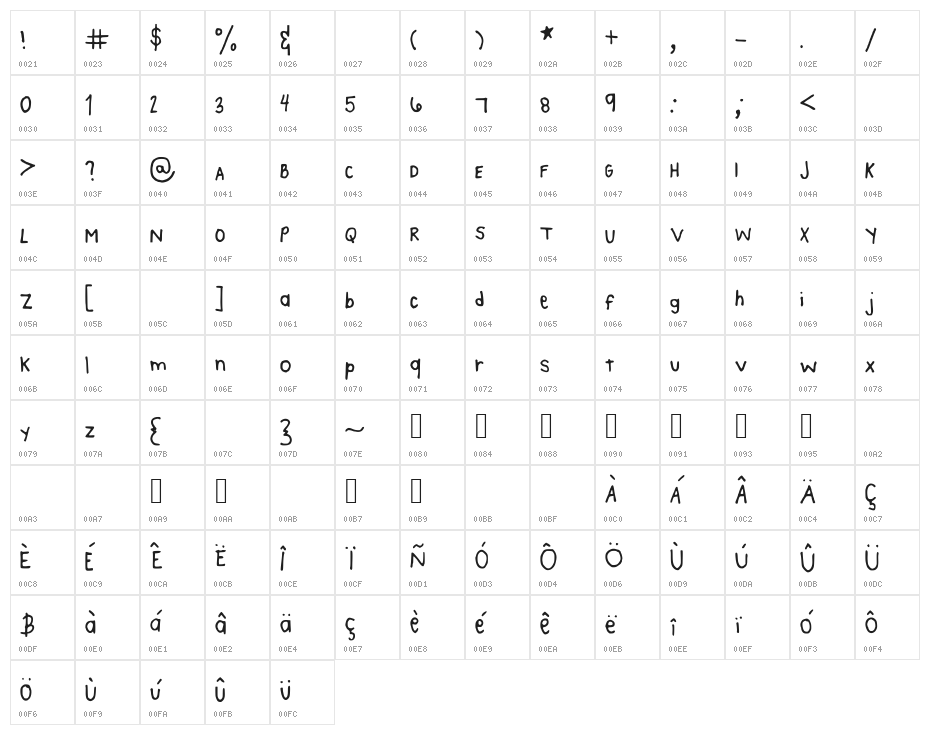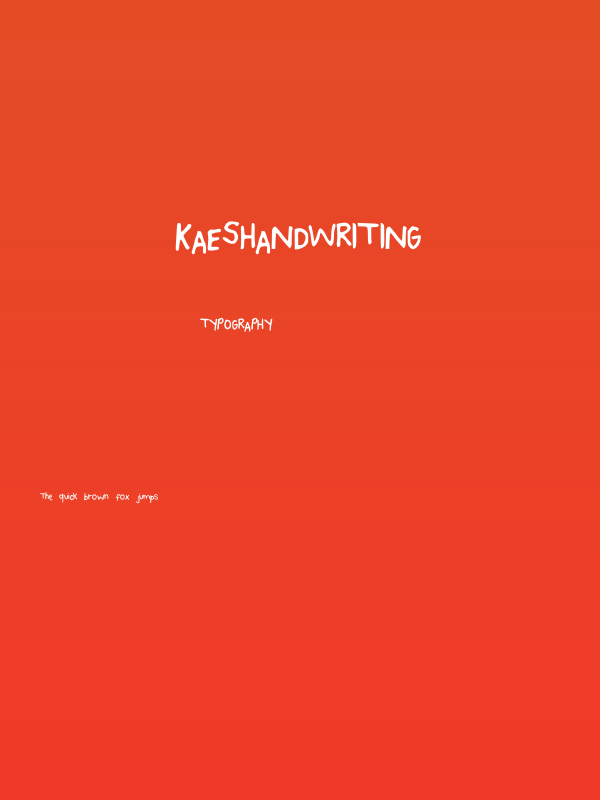
KaesHandwriting Font
KaesHandwriting Description
This font exudes a playful and casual handwritten style, characterized by its smooth, rounded edges and slightly irregular letterforms that mimic natural handwriting. The uppercase and lowercase letters maintain a consistent flow, with a slight tilt that adds to its informal charm. The numerals and special characters are crafted with the same whimsical touch, ensuring a cohesive look across all characters. This font is perfect for projects that require a personal, friendly touch, such as greeting cards, invitations, or informal branding materials. Its legibility and unique style make it suitable for both digital and print media.
| Use Case | Headlines, Informal text, Personal projects |
| Proposed Projects | Greeting cards, invitations, informal branding, personal notes. |